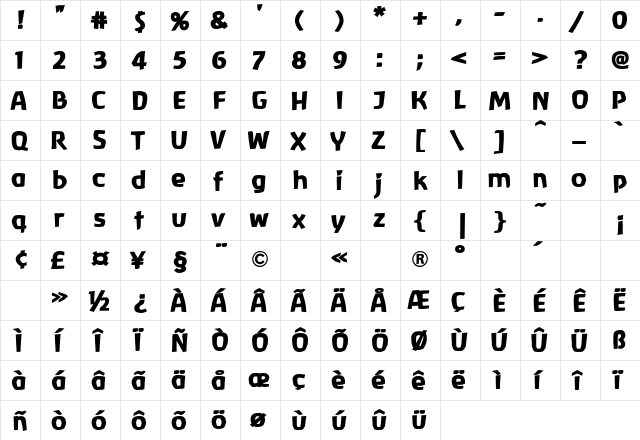
Baar Antropos Display Regular
Design Context for Baar Antropos Display Typeface
Baar Antropos Display brings ornamental detail and strong personality to headlines and identities, where visual impact matters more than quiet functionality.
Font Pairing: Pair with a clean neutral sans-serif for body copy to let Baar Antropos Display's character lead without overwhelming the composition.
Pro Tip: Treat Baar Antropos Display as the centrepiece of your typographic hierarchy. One strong heading set in a decorative face can carry an entire layout.